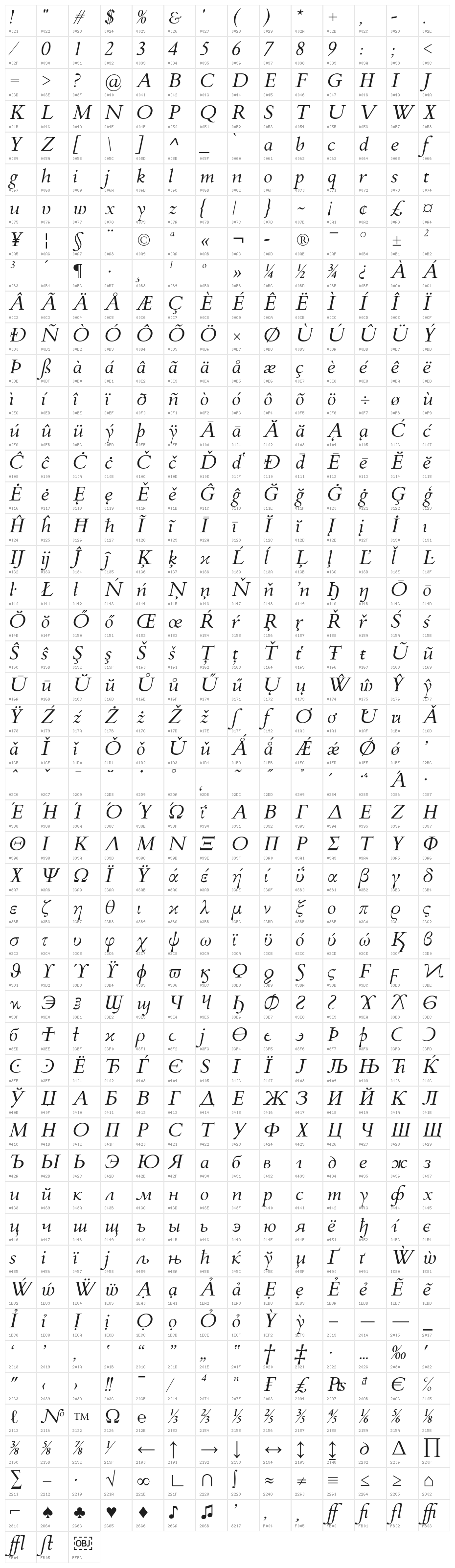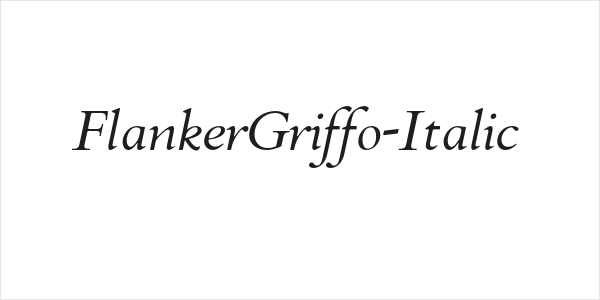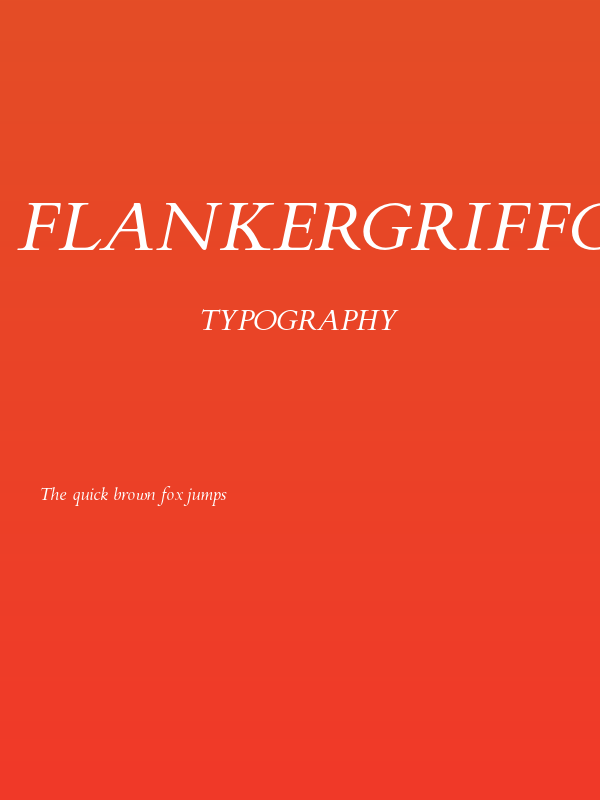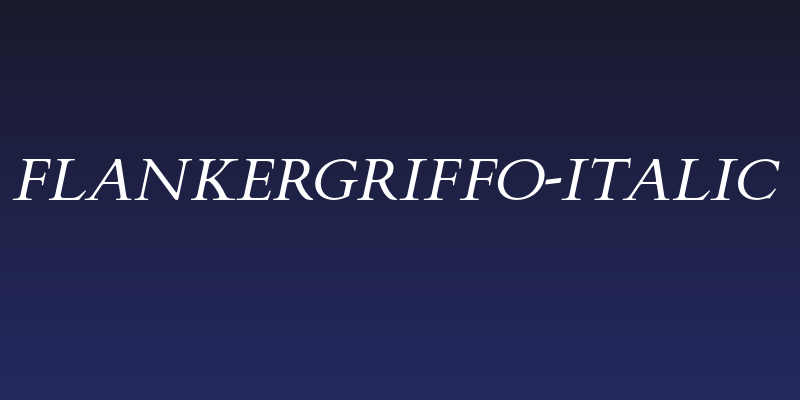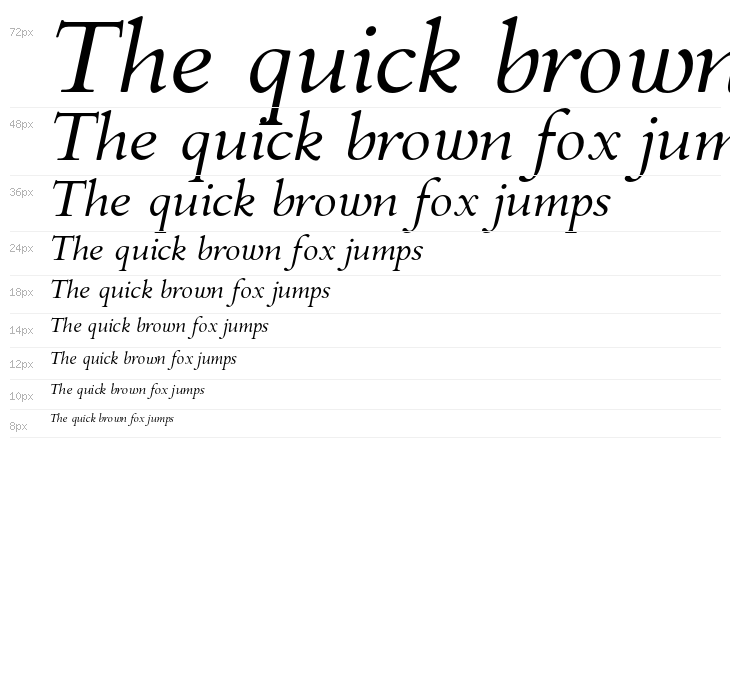
FlankerGriffo-Italic Font
FlankerGriffo-Italic Description
This elegant typeface features a classic italic style with a refined and sophisticated appearance. The characters are gracefully slanted, providing a sense of motion and fluidity. The strokes are moderately contrasted, with thin lines elegantly transitioning into thicker ones, adding to the font's dynamic look. The serifs are delicately crafted, enhancing the overall elegance without overpowering the design. This font maintains a balanced character spacing, ensuring readability while preserving its stylish appeal. The numerals and special characters are designed to match the font's overall aesthetic, making it versatile for various applications.